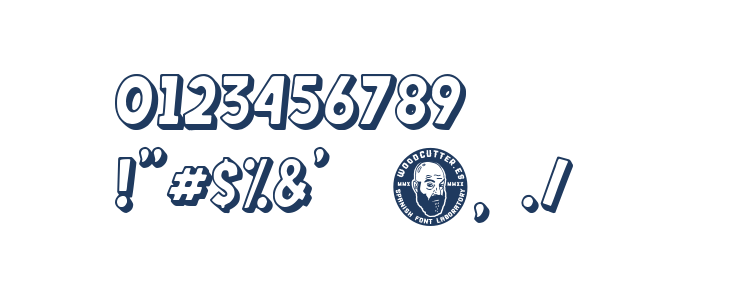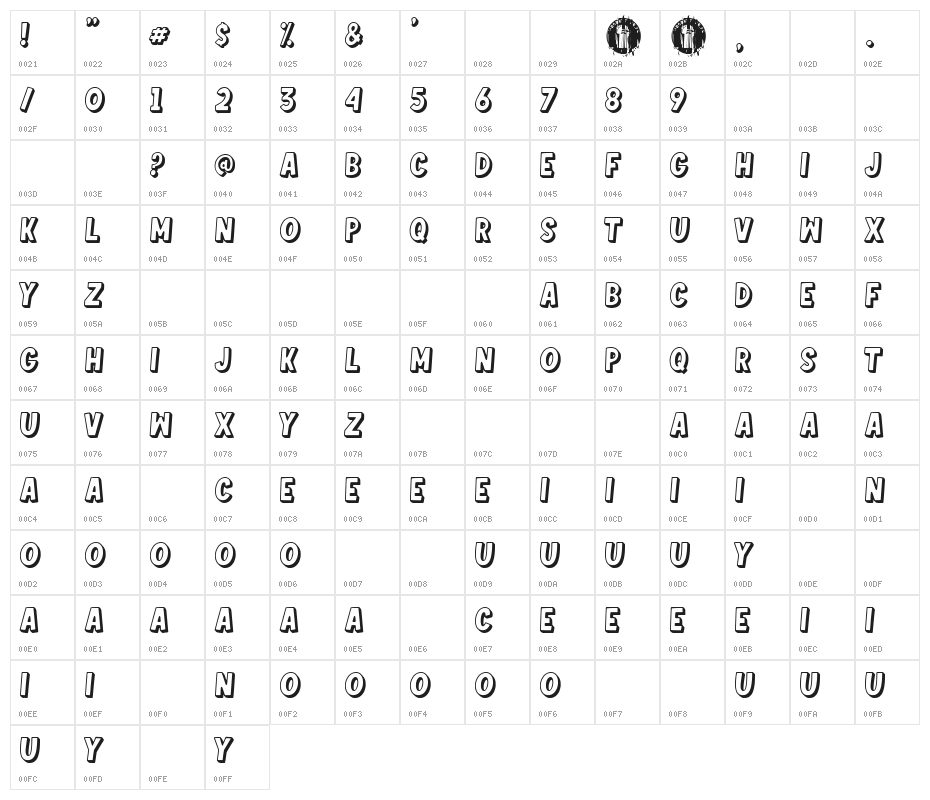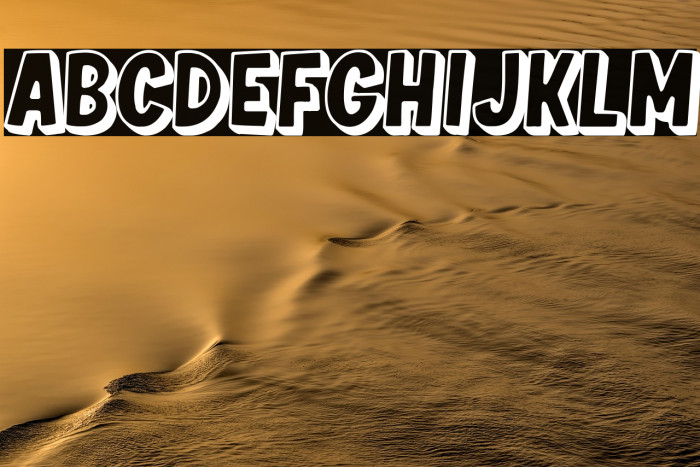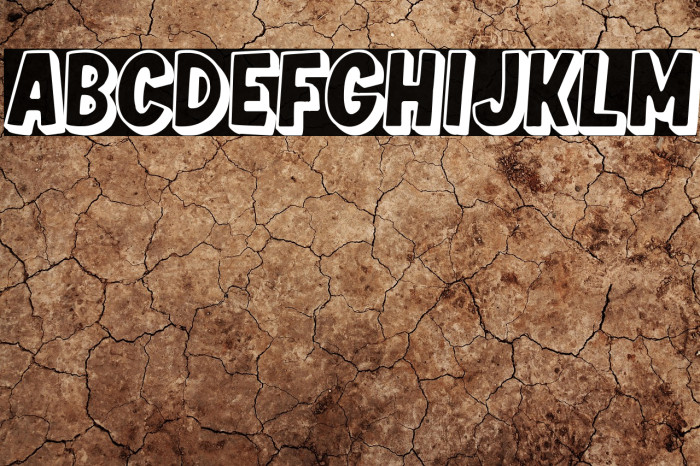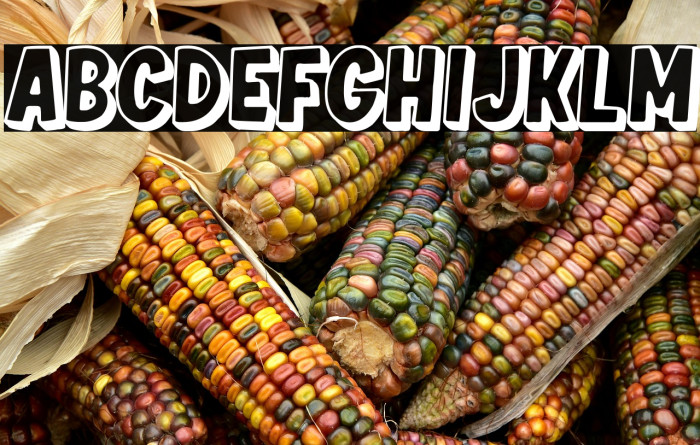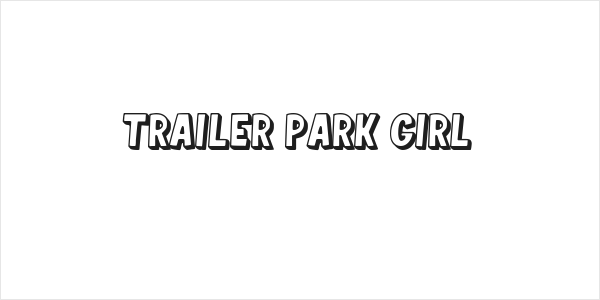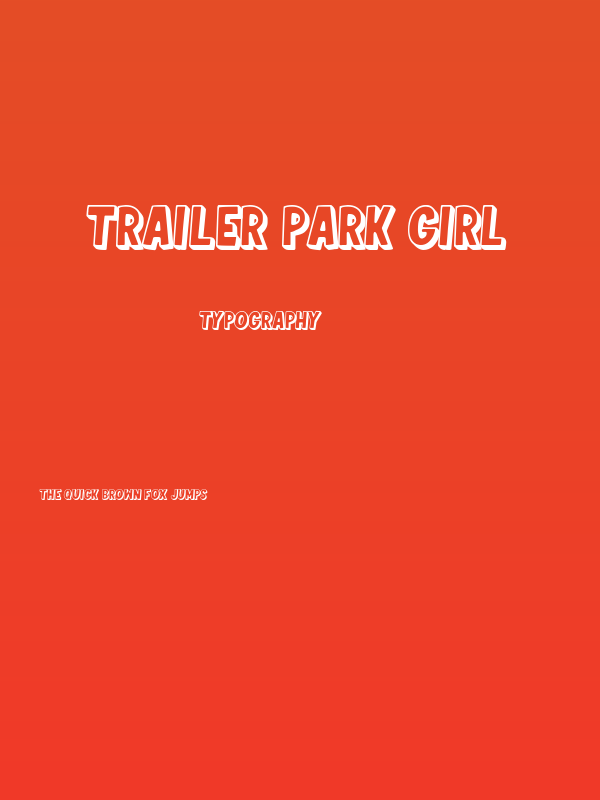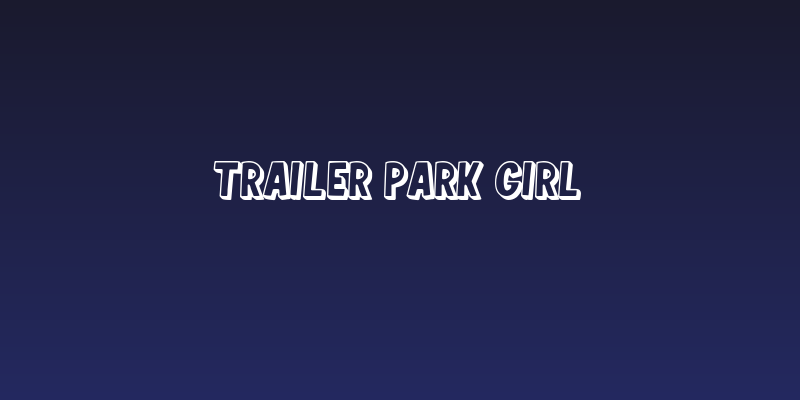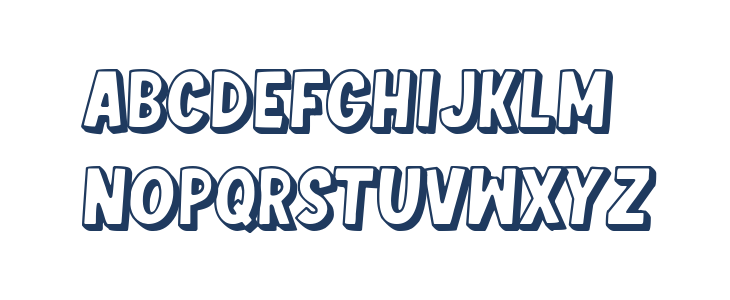
Trailer Park Girl Font
Trailer Park Girl Description
This font features bold, playful characters with a strong, shadowed outline that gives it a three-dimensional effect. The uppercase letters are prominent and well-defined, making them stand out. The numerals and special characters maintain the same bold style, ensuring consistency across all glyphs. The font's design is reminiscent of comic book lettering, with a fun and energetic vibe. Its thick strokes and shadowing make it highly legible and eye-catching, suitable for designs that require a bold statement.
| Overall Style | Playful, Comic |
| Use Case | Headlines, Posters, Branding |
| Proposed Projects | Ideal for comic books, children's books, posters, and playful branding projects. |